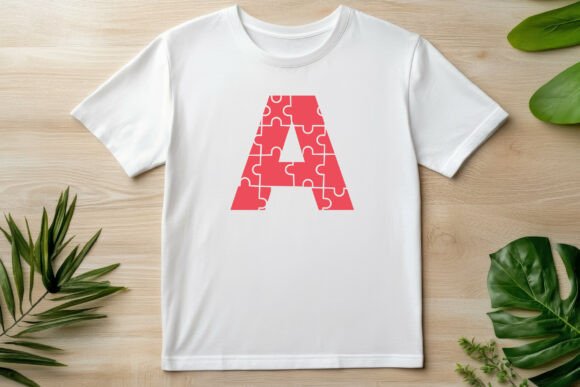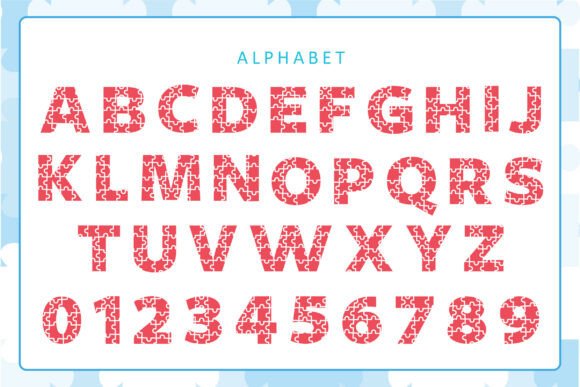
Introducing Autism Font: A Symbol of Diversity and Connection
In the world of typography, fonts are more than just a means of communication – they’re a way to convey emotions, express creativity, and make a statement. For designers, crafters, and advocates, a font can be a powerful tool to spread awareness and promote understanding. This is where the Autism Font comes in – a vibrant, decorative font designed to inspire and celebrate the beauty of diversity.
The Story Behind Autism Font
Autism Font is more than just a typographic design – it’s a visual representation of the autism community’s values and spirit. Each bold, blocky letter is uniquely patterned with a detailed puzzle-piece motif, symbolizing the way different perspectives fit together to create a beautiful whole. The puzzle piece, a widely recognized symbol of autism awareness, represents the idea that individuals with autism are not broken or incomplete, but rather, they bring a unique perspective to the table.
Design Features and Benefits
Autism Font boasts a high-contrast design and a friendly, accessible silhouette, making it perfect for a variety of applications. The font’s bold, blocky letters are not only visually striking but also highly legible, ensuring that your message is conveyed with clarity and impact. The font’s design features include:
- Unique puzzle-piece motif: Each letter is intricately patterned with a puzzle piece design, adding a touch of personality and whimsy to your text.
- High-contrast design: The font’s high-contrast design ensures that your text stands out, making it perfect for posters, flyers, and other visual materials.
- Accessible silhouette: The font’s friendly, approachable design makes it easy to read and understand, even for those with visual impairments.
Applications and Use Cases
Autism Font is a versatile design tool that can be used in a variety of contexts, including:
- Non-profit branding: Create a lasting impression with a font that reflects your organization’s values and mission.
- Awareness campaign posters: Make a bold statement with eye-catching posters that grab attention and spark conversation.
- Educational materials: Engage students and educators alike with a font that’s both fun and informative.
- Community event graphics: Celebrate diversity and connection with custom graphics that showcase your event’s personality.
Inspiring Creativity and Connection
Autism Font is more than just a design tool – it’s a way to inspire creativity, promote understanding, and celebrate individuality. By using this font, designers and crafters can create visual materials that:
- Promote acceptance and inclusion: By using a font that symbolizes diversity and connection, you’re helping to create a more accepting and inclusive environment.
- Inspire creativity: The font’s unique design and playful motif can inspire creativity and imagination, sparking new ideas and perspectives.
- Tell a story: Autism Font can help you tell a story of connection, diversity, and individuality, making your message more relatable and memorable.
Autism Font is a powerful design tool that’s not only visually striking but also thought-provoking. By incorporating this font into your design projects, you’re helping to promote understanding, acceptance, and inclusion. Whether you’re a designer, crafter, or advocate, Autism Font is a valuable resource that can help you create visual materials that inspire, educate, and connect.